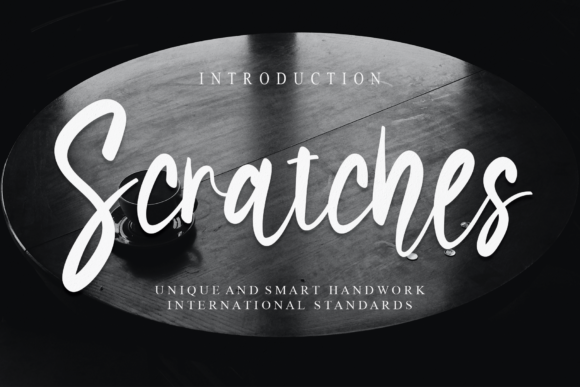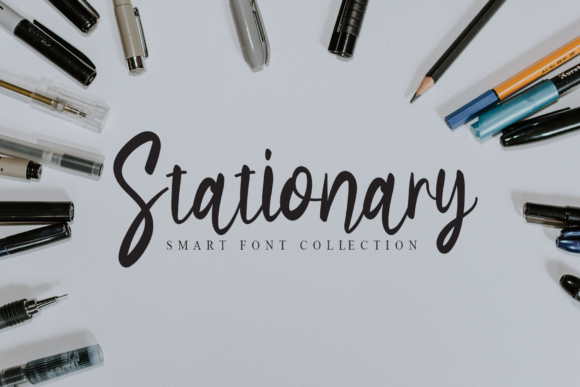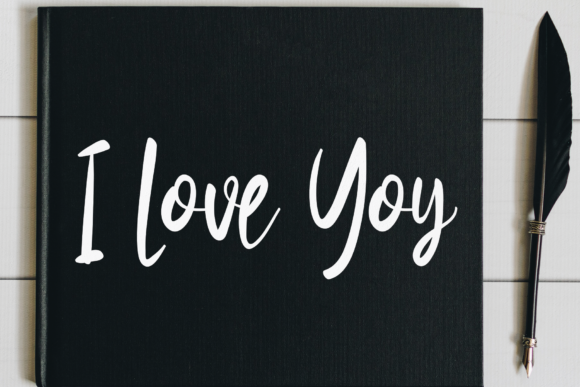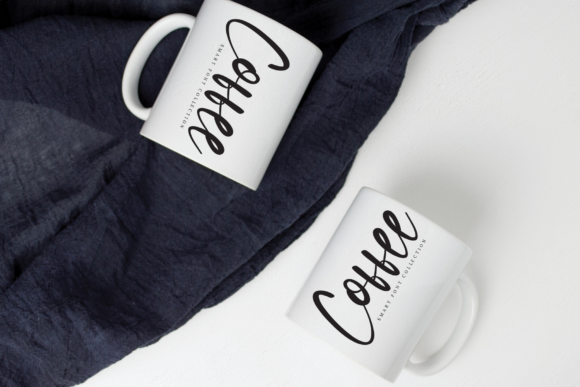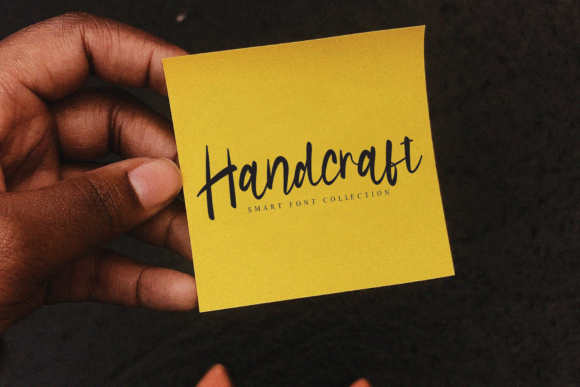
Scratches Font
About Scratches Font
Scratches is a beautifully clear handwritten font. It is masterfully designed so that everyone will easily get absorbed into the writing and appreciate the beauty of your project!